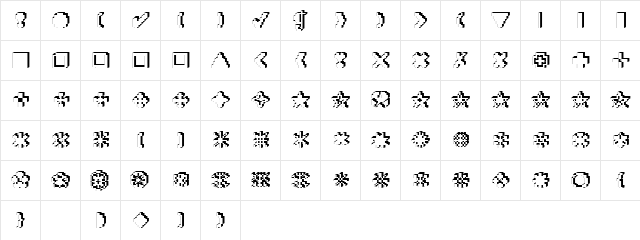
XRough05 Becker Regular
Design Context for XRough05 Becker Typeface
XRough05 Becker embraces imperfection — its rough, textured character adds raw authenticity to designs that want to feel lived-in and unconventional.
A strong fit for alternative music projects, graffiti-adjacent design, and anything that deliberately resists polish.
Pro Tip: Use XRough05 Becker at larger sizes where the texture and irregularity of each letterform can be clearly seen — it loses its character at small sizes.